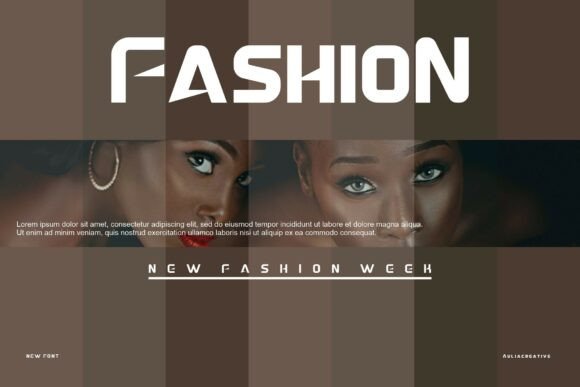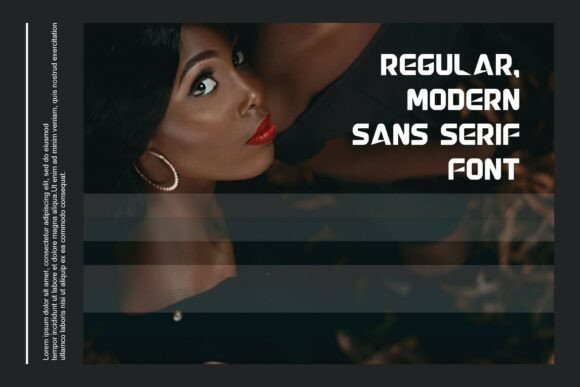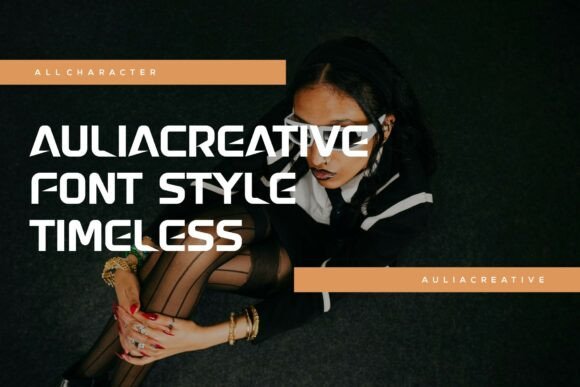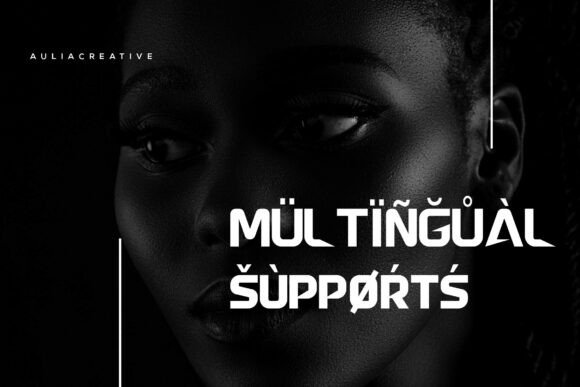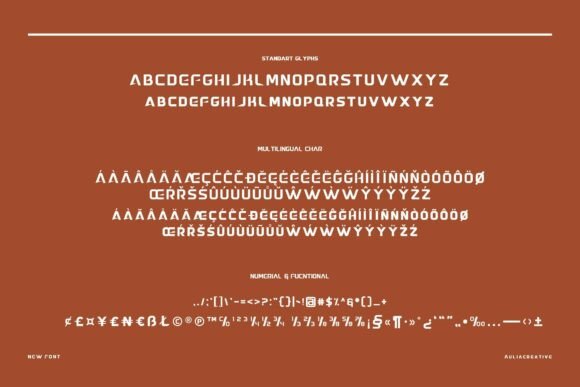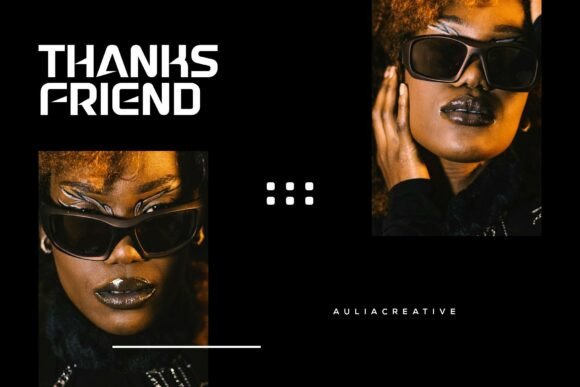
Unleash Your Creativity with Badexs Font: A Unique Sans Serif Marvel
Are you tired of using the same old fonts in your designs? Look no further! Badexs Font is here to revolutionize your creative projects with its incredibly unique sans serif style. Masterfully designed to become a true favorite among designers and crafters, Badexs Font has the potential to bring each of your creative ideas to the highest level. In this article, we’ll dive into the world of Badexs Font, exploring its features, benefits, and uses, and provide you with valuable insights on how to make the most of this exceptional font.
The Birth of Badexs Font
Badexs Font is a sans serif font that has been carefully crafted to provide a fresh and modern look to your designs. Its unique style is a result of meticulous attention to detail and a deep understanding of what makes a font truly great. Whether you’re working on a logo, brochure, website, or any other design project, Badexs Font is sure to make a lasting impression.
What Makes Badexs Font So Special?
So, what sets Badexs Font apart from other fonts out there? Here are just a few of its standout features:
• Unique Sans Serif Style: Badexs Font boasts a one-of-a-kind sans serif design that’s both modern and elegant.
• Highly Versatile: This font is perfect for a wide range of design projects, from logos and branding to websites and marketing materials.
• Easily Readable: Despite its unique style, Badexs Font remains highly legible, making it perfect for body text and headlines.
• Customizable: With its wide range of weights and styles, Badexs Font can be tailored to suit your specific design needs.
The Benefits of Using Badexs Font
By incorporating Badexs Font into your designs, you’ll enjoy a range of benefits, including:
• Instant Recognition: Badexs Font’s unique style will help your designs stand out from the crowd and grab attention.
• Improved Brand Identity: With its modern and elegant look, Badexs Font can help elevate your brand’s image and create a lasting impression.
• Enhanced Creativity: Badexs Font’s versatility and customizability will inspire you to think outside the box and push the boundaries of your creativity.
How to Use Badexs Font in Your Designs
Ready to get started with Badexs Font? Here are some tips to help you make the most of this incredible font:
• Pair it with Other Fonts: Experiment with combining Badexs Font with other fonts to create a unique and visually appealing typography.
• Experiment with Colors: Try out different color schemes to find the perfect match for your design and Badexs Font.
• Play with Weights and Styles: Take advantage of Badexs Font’s range of weights and styles to add depth and interest to your designs.